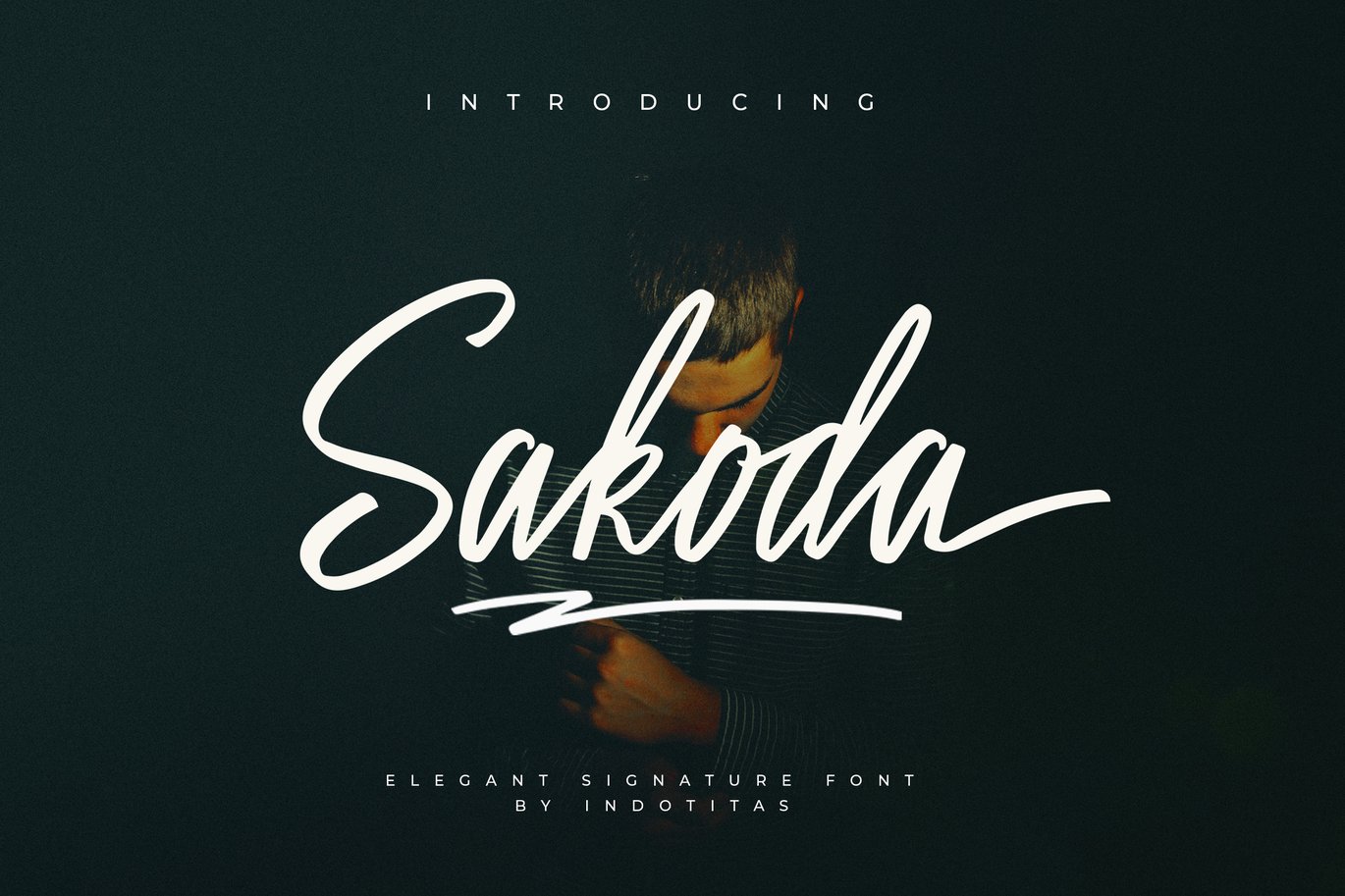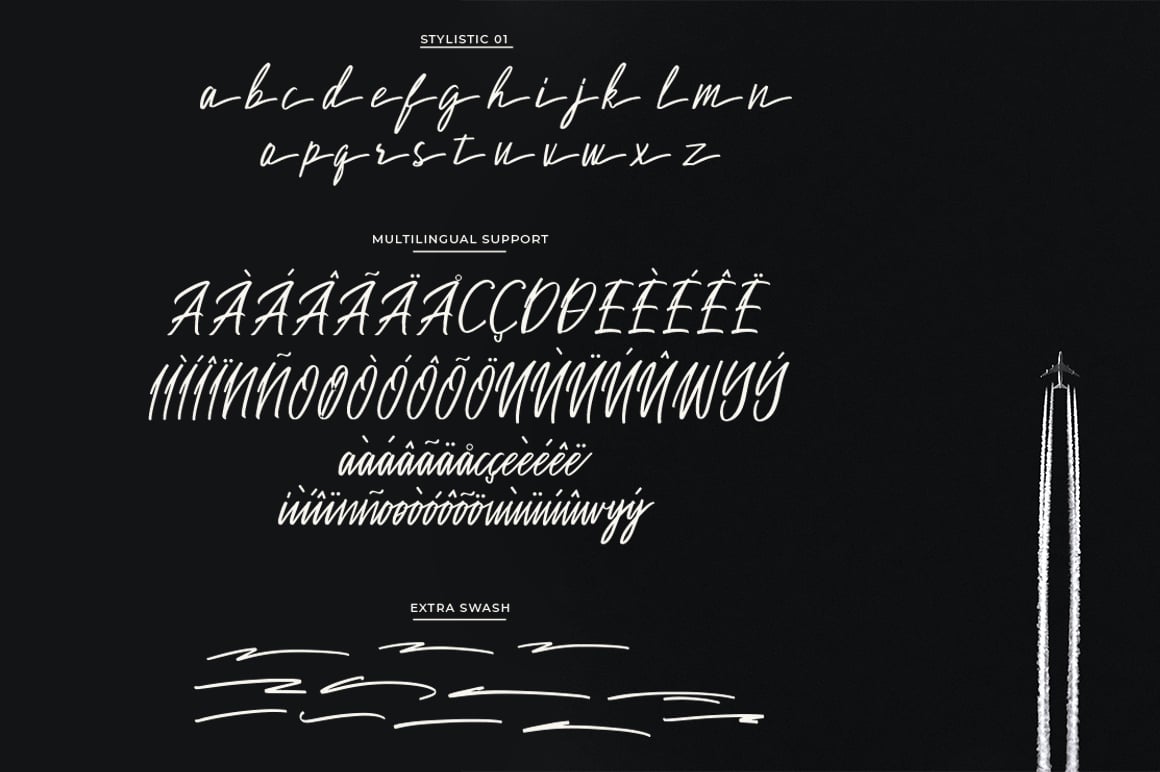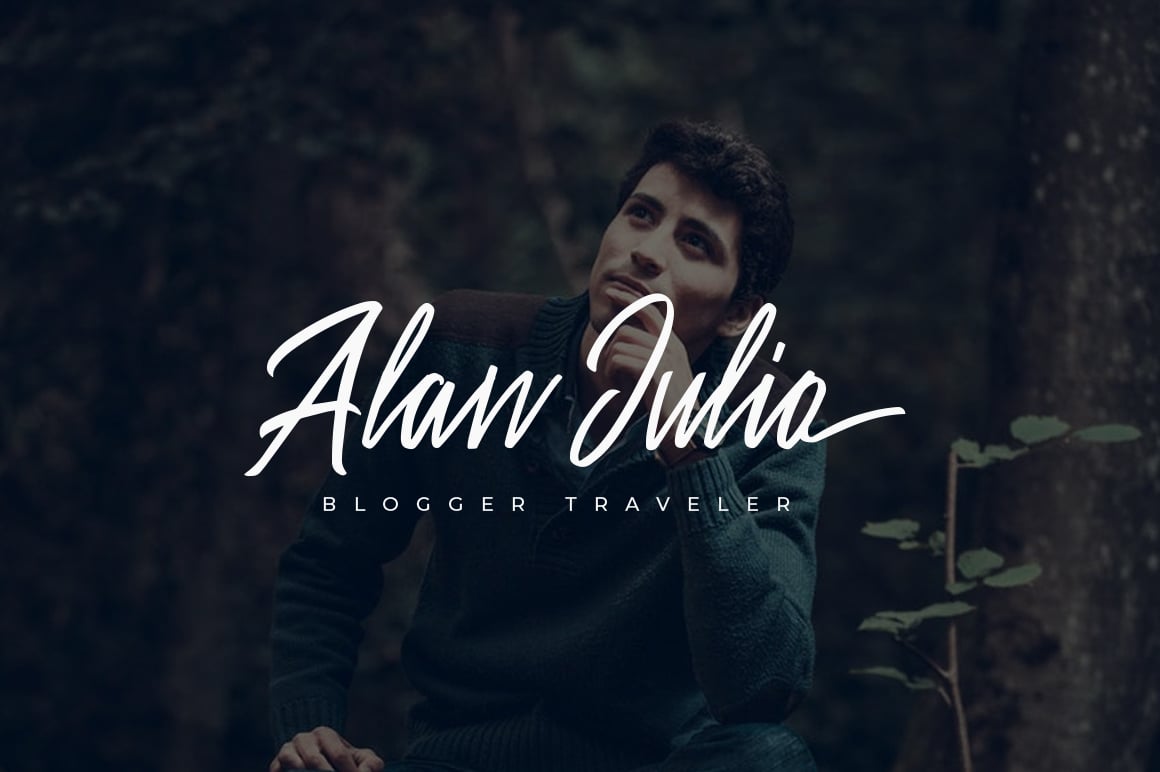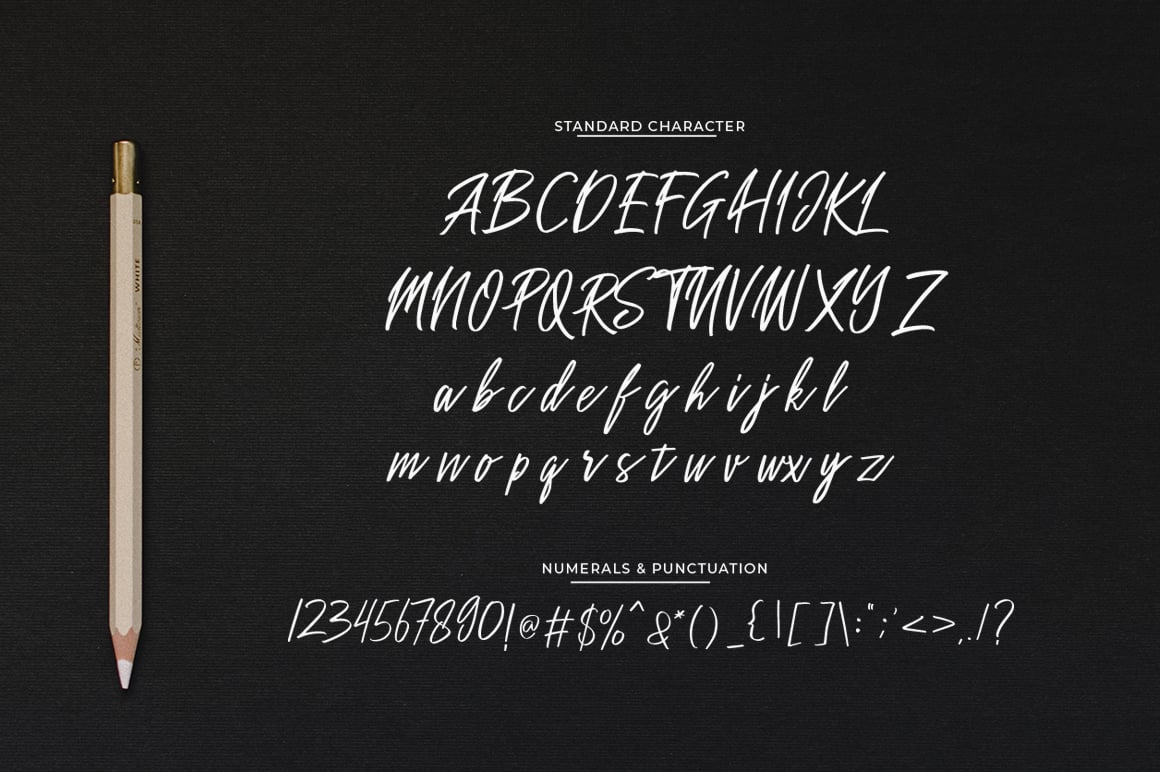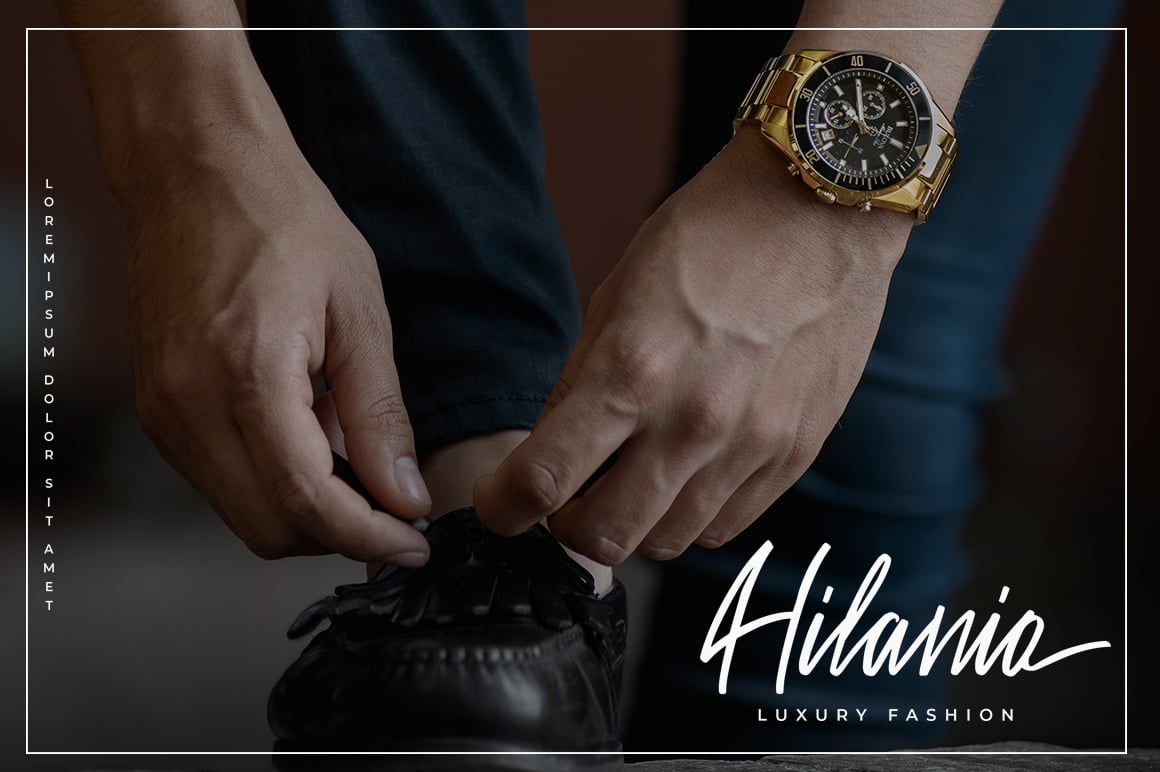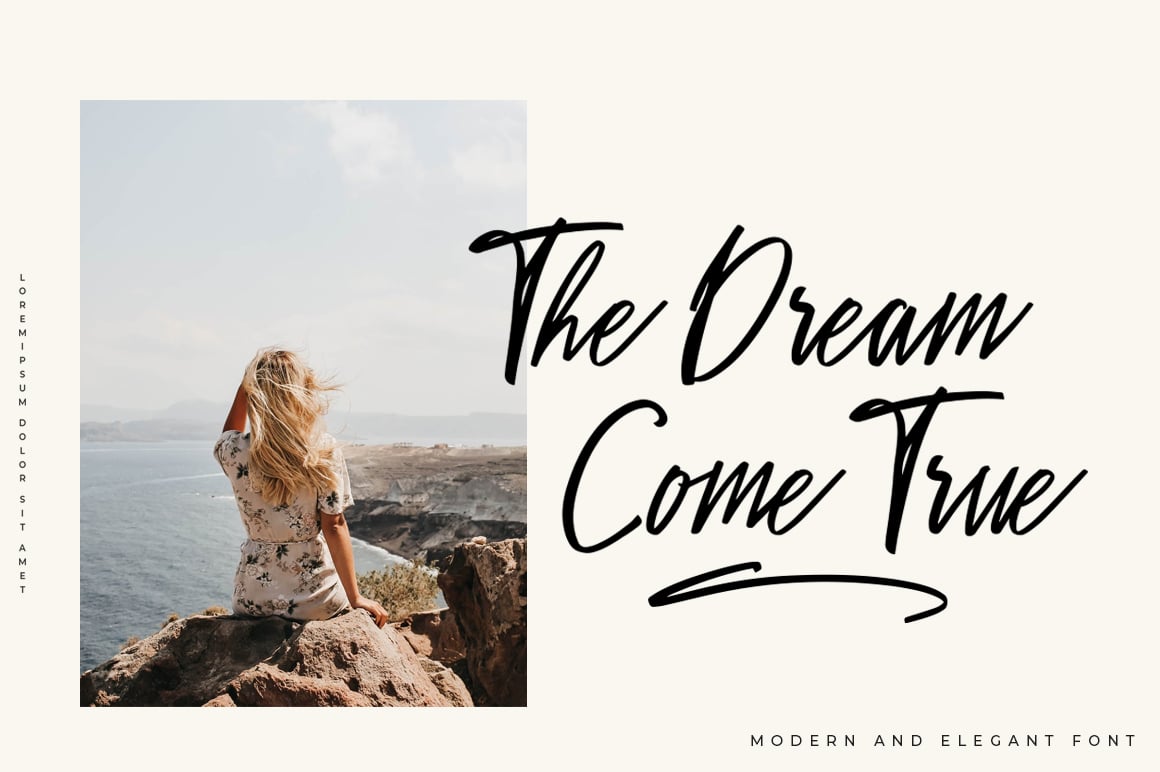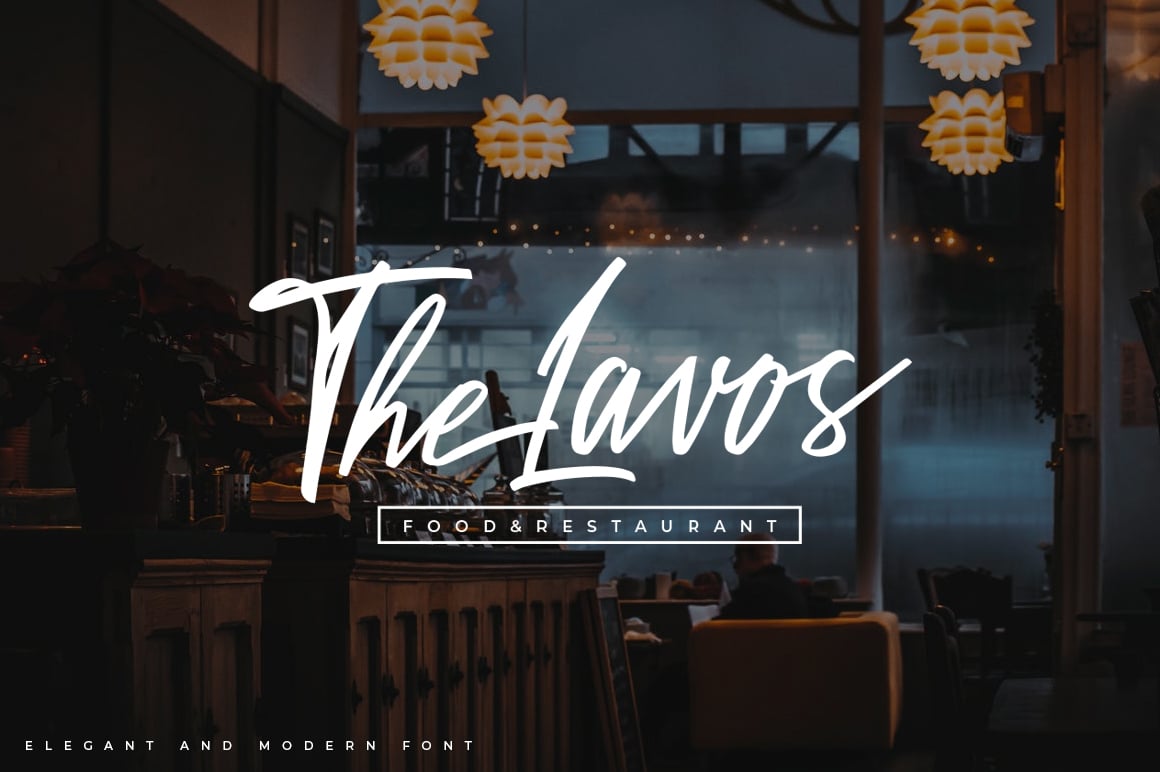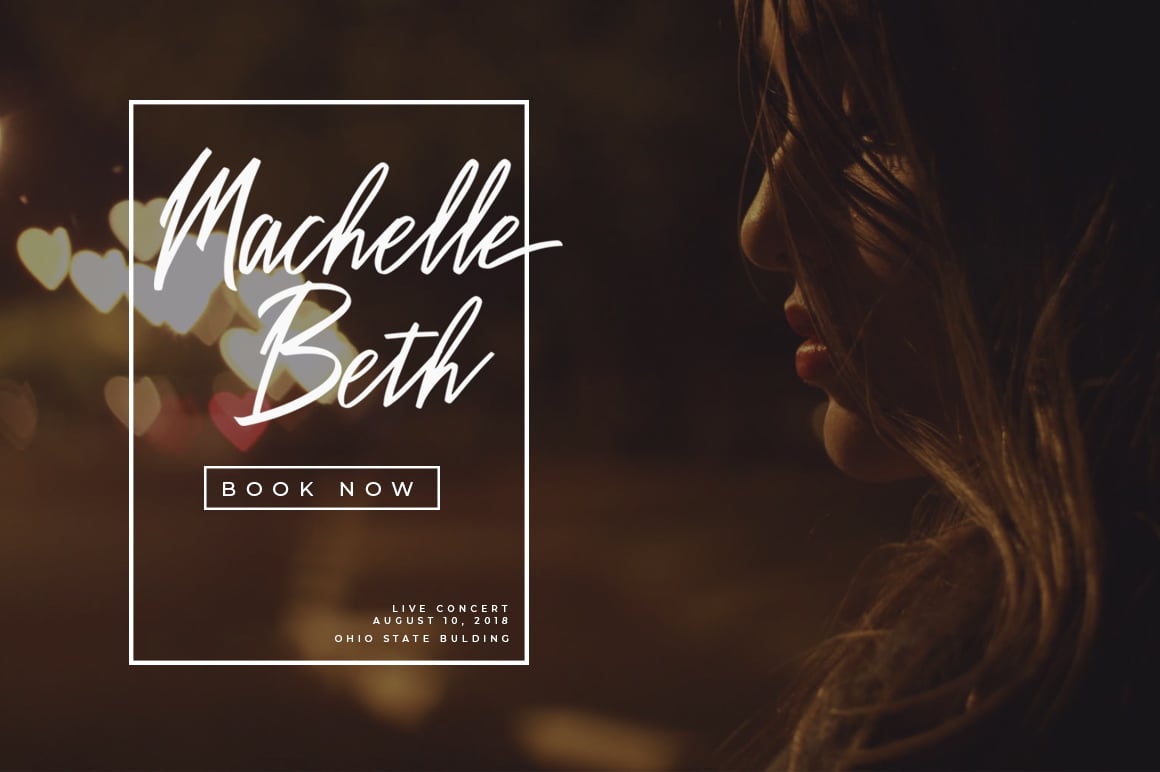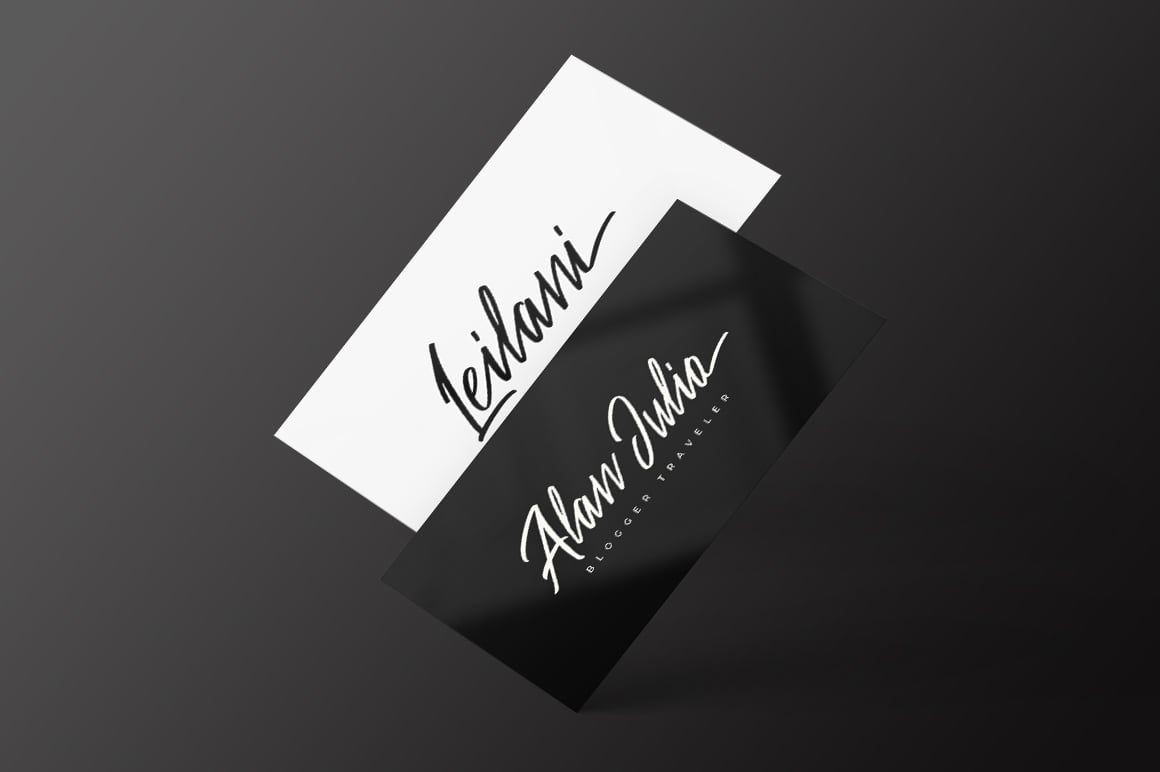
Sakoda Signature Font
Sakoda Signature Font is a elegant and modern looking handwritten script, ideal for use in projects that need an organic and natural style. This font is great for logo, logotype, branding,wedding, fashion, label, book cover, t-shirt, instagram post, and other, and can add an elegant and classy look to your work.
- Symbols
- Opentype Feature
- Extra Swash
- Multilingual Support AÀÁÂÃÄÅCÇDÐEÈÉÊËIÌÍÎÏNÑOØÒÓÔÕÖUÙÜÚÛß
Glyphs (include Uppercase, Lowercase, Numerals & Punctuations, Stylistic Set, Ligature, Swashes)